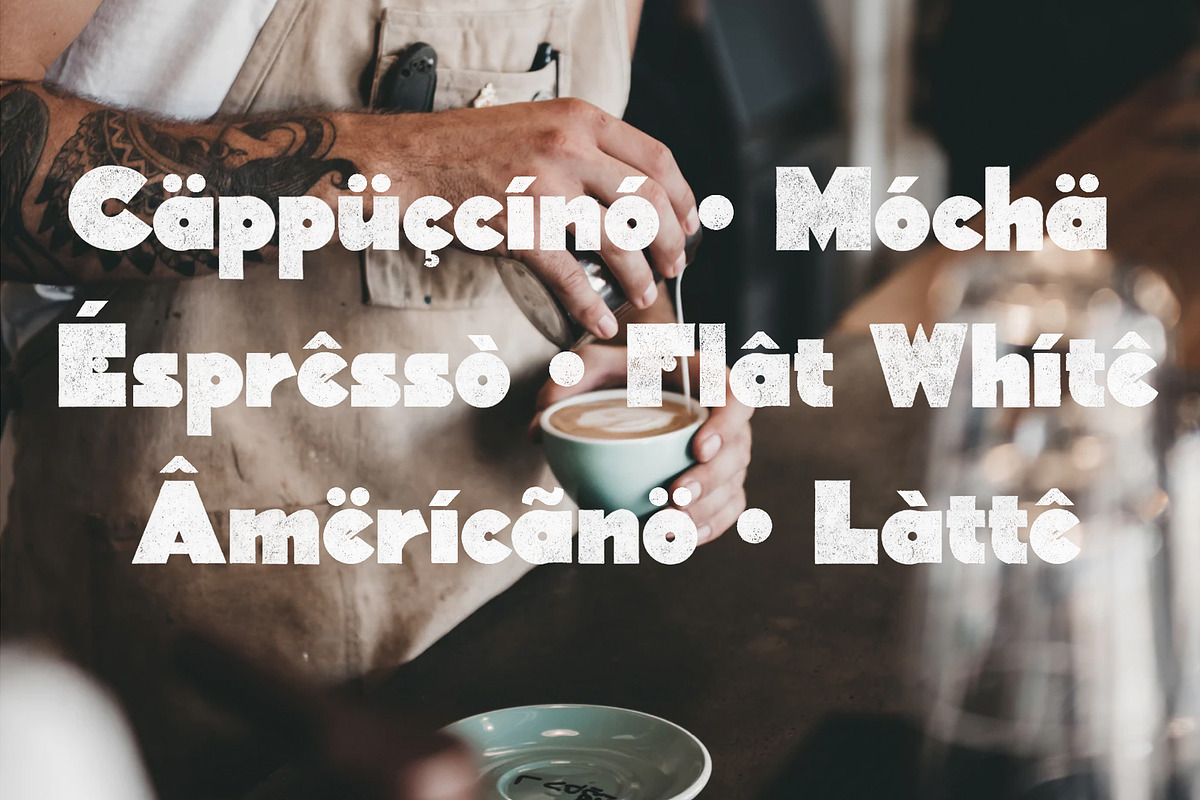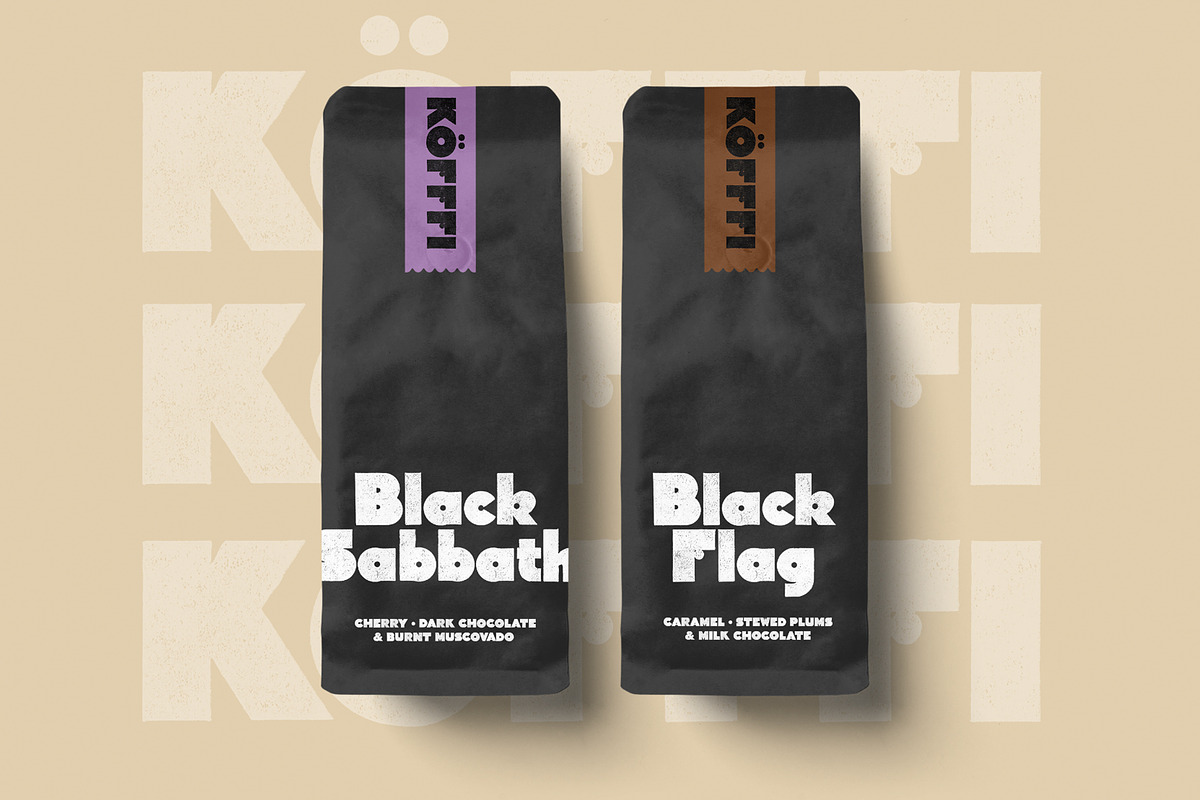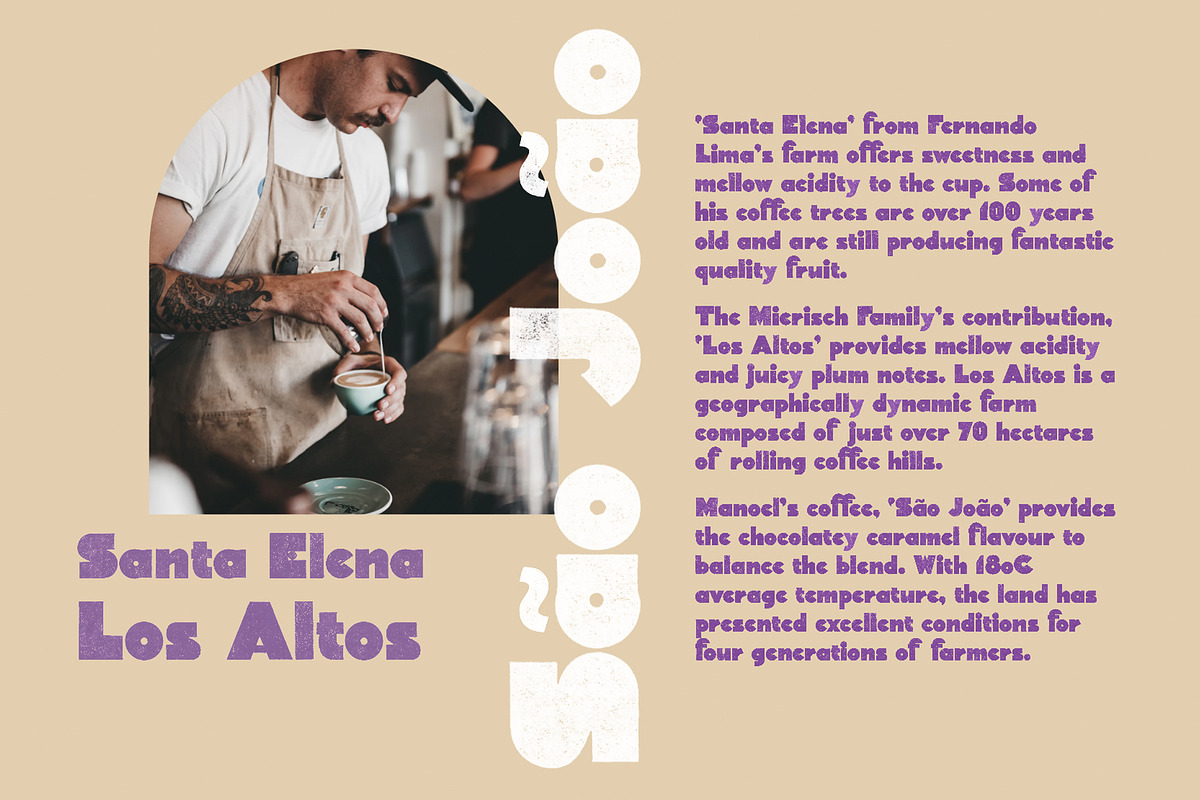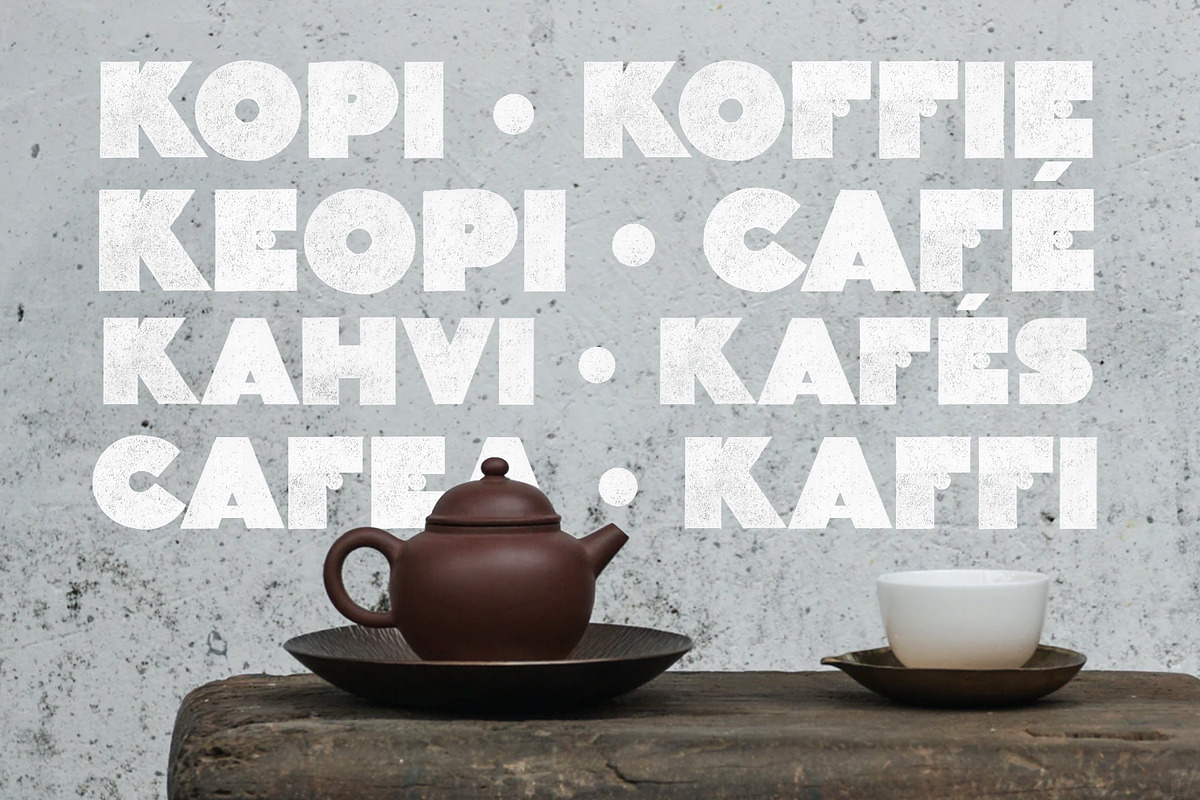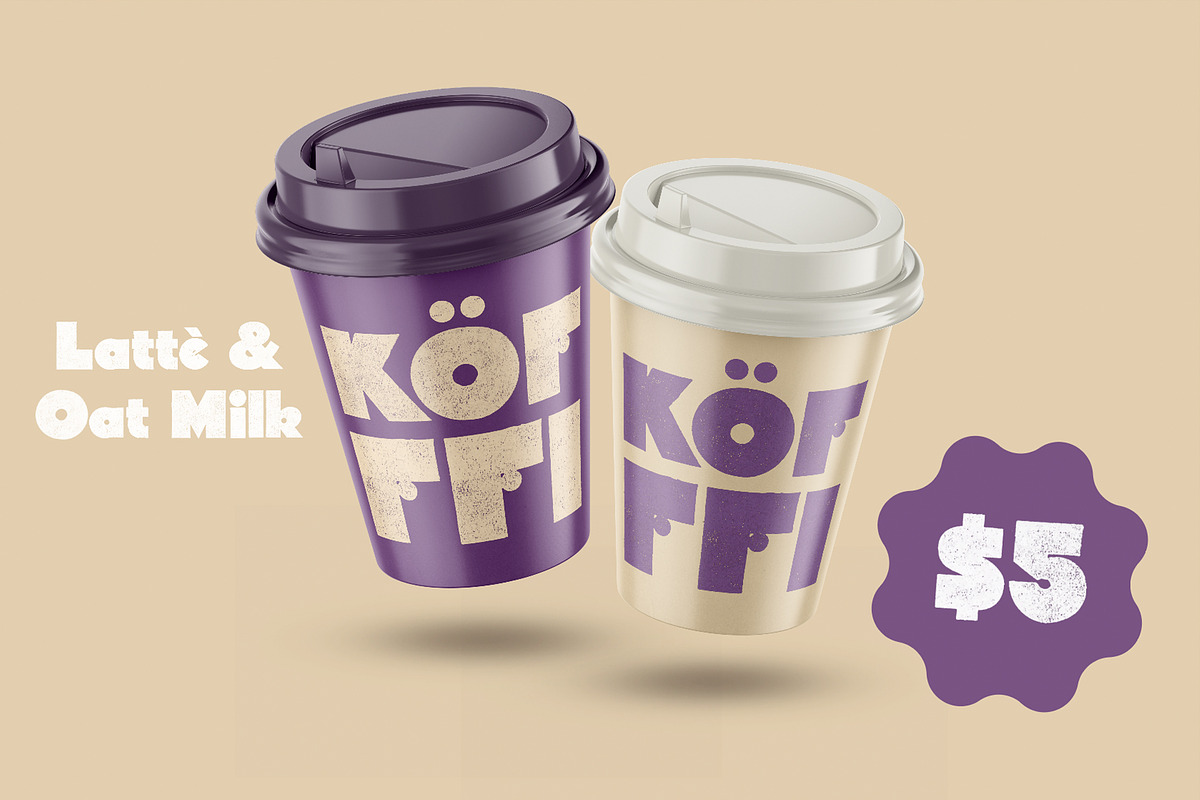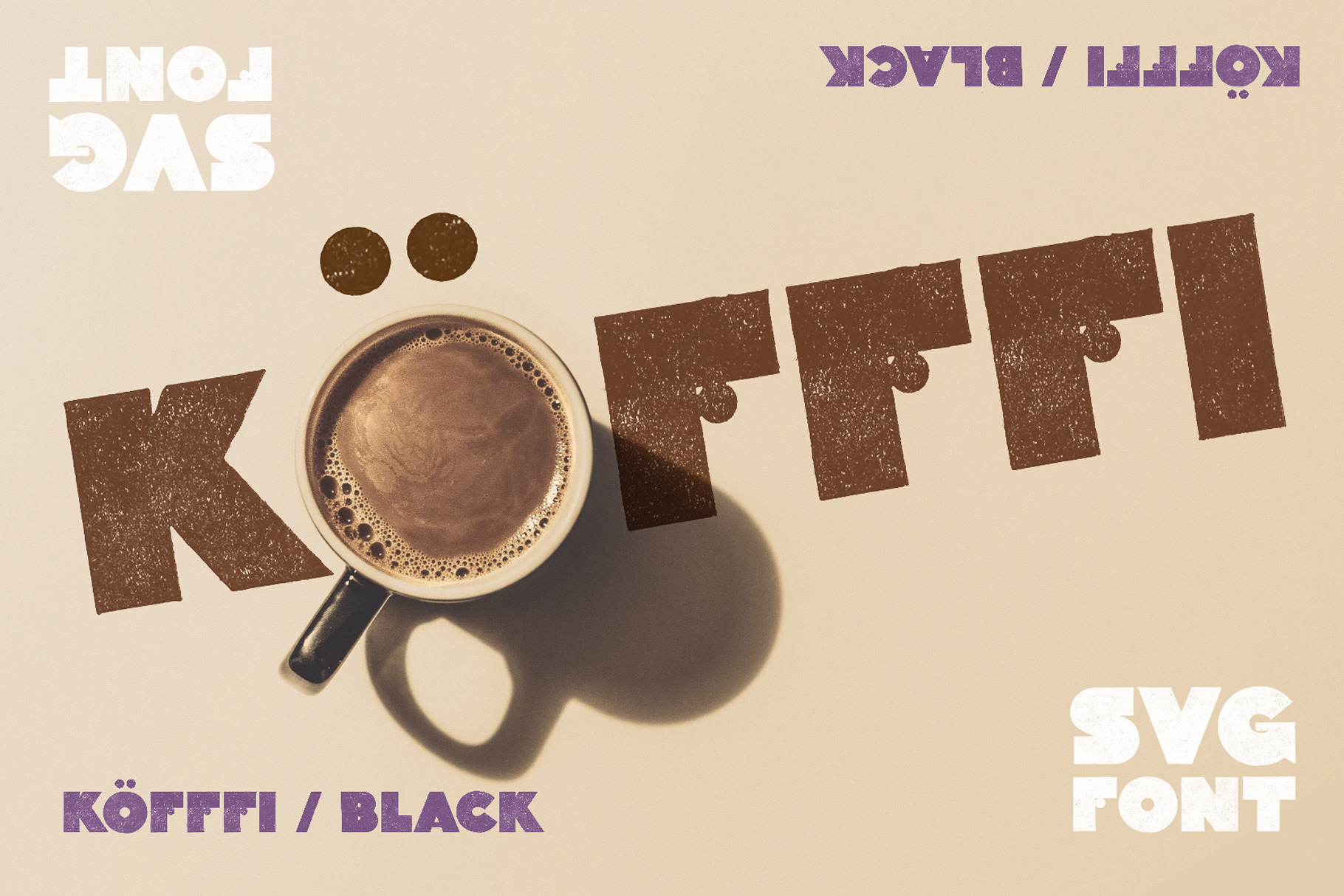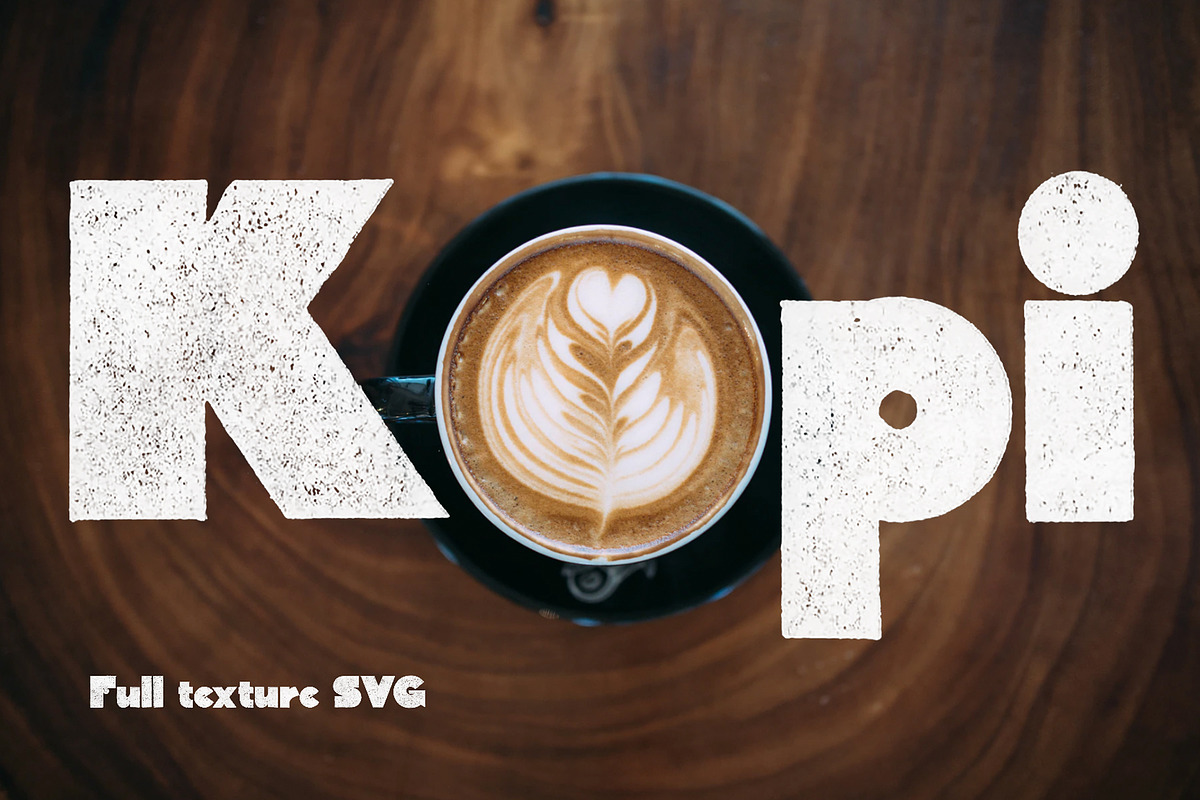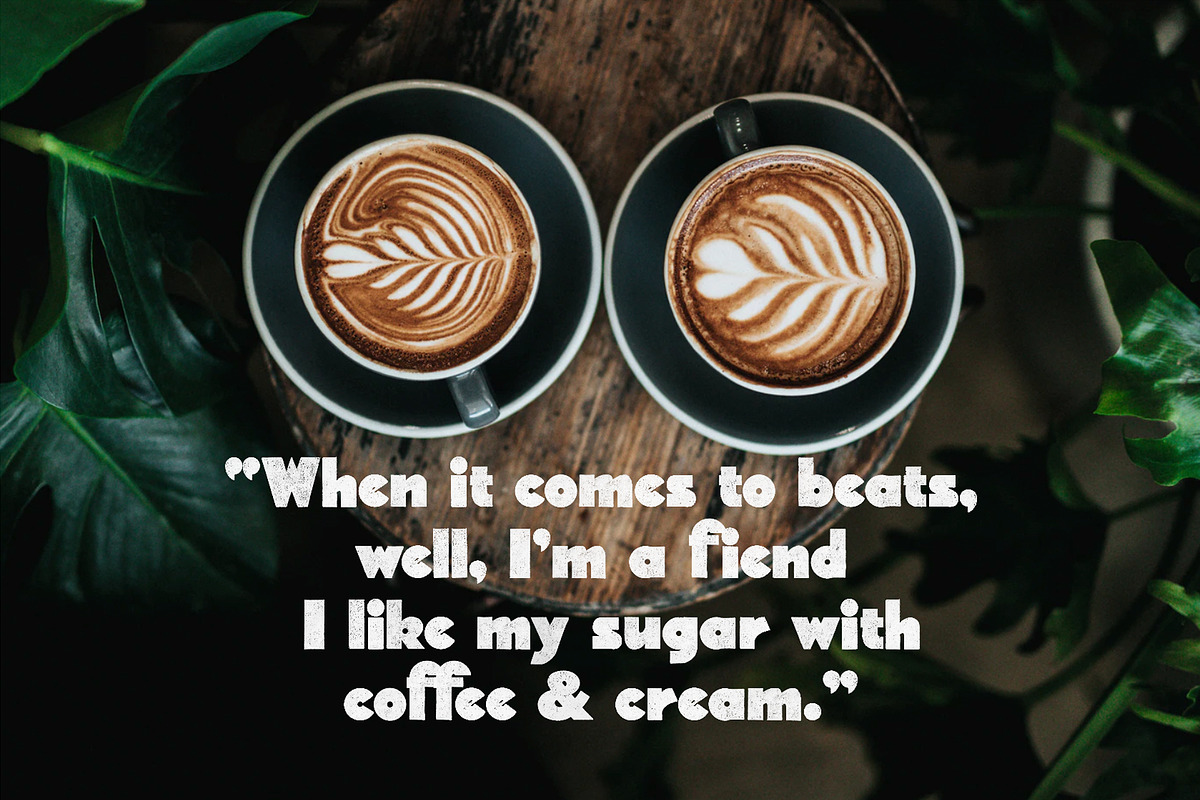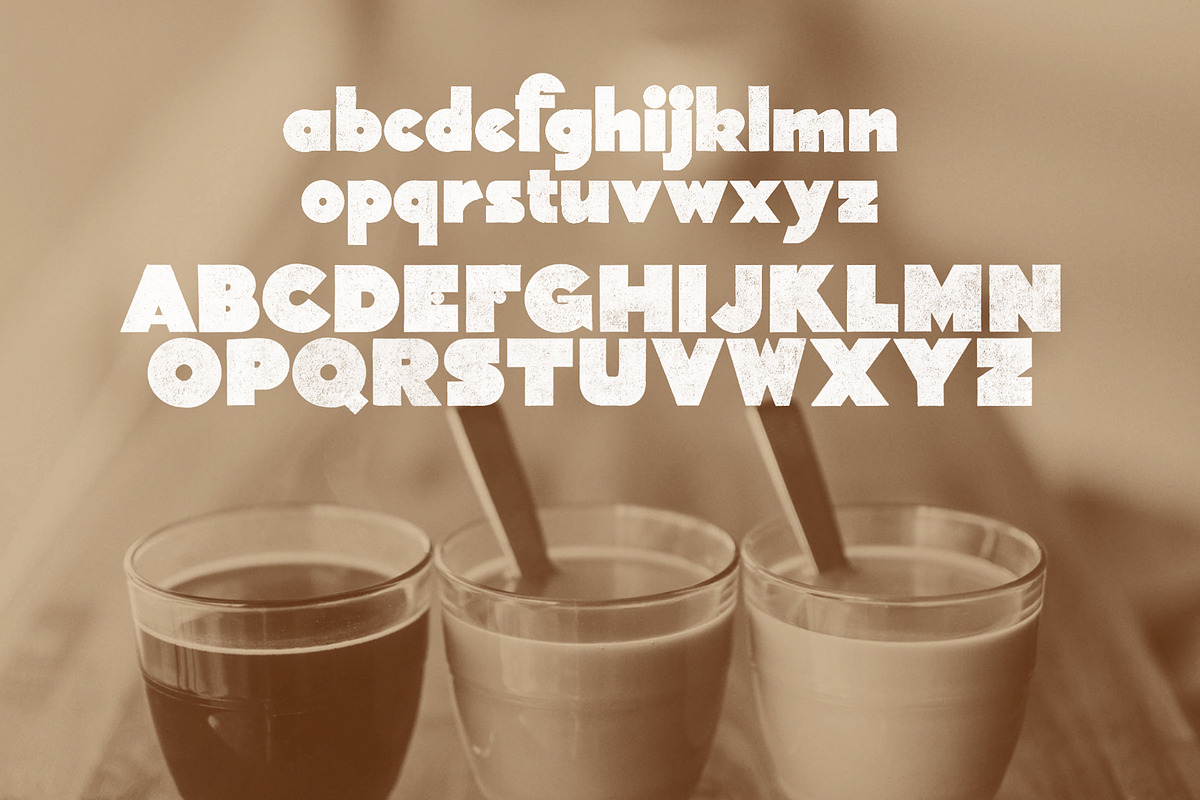
Kofffi | SVG vintage font
Kofffi is a bold art deco font, like the smoky old grand cafés signs you'll find in European capitals. It's unashamedly retro, but can be used with new brands to create modern vibes. It's got the full SVG distressed texture which you can get amazing effects overlaying over photography. One more cup of Kofffi for the road, One more cup of Kofffi 'fore I go!